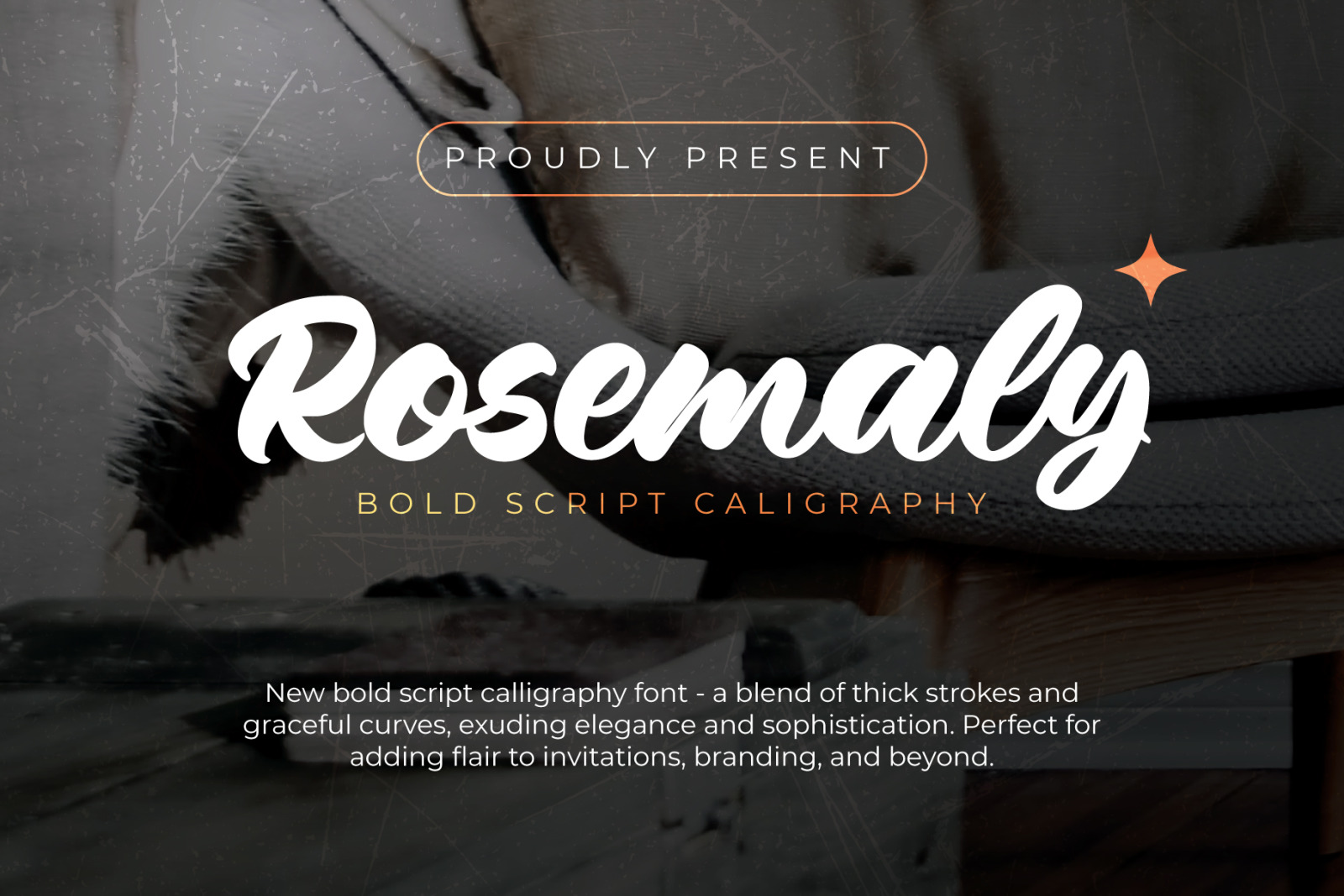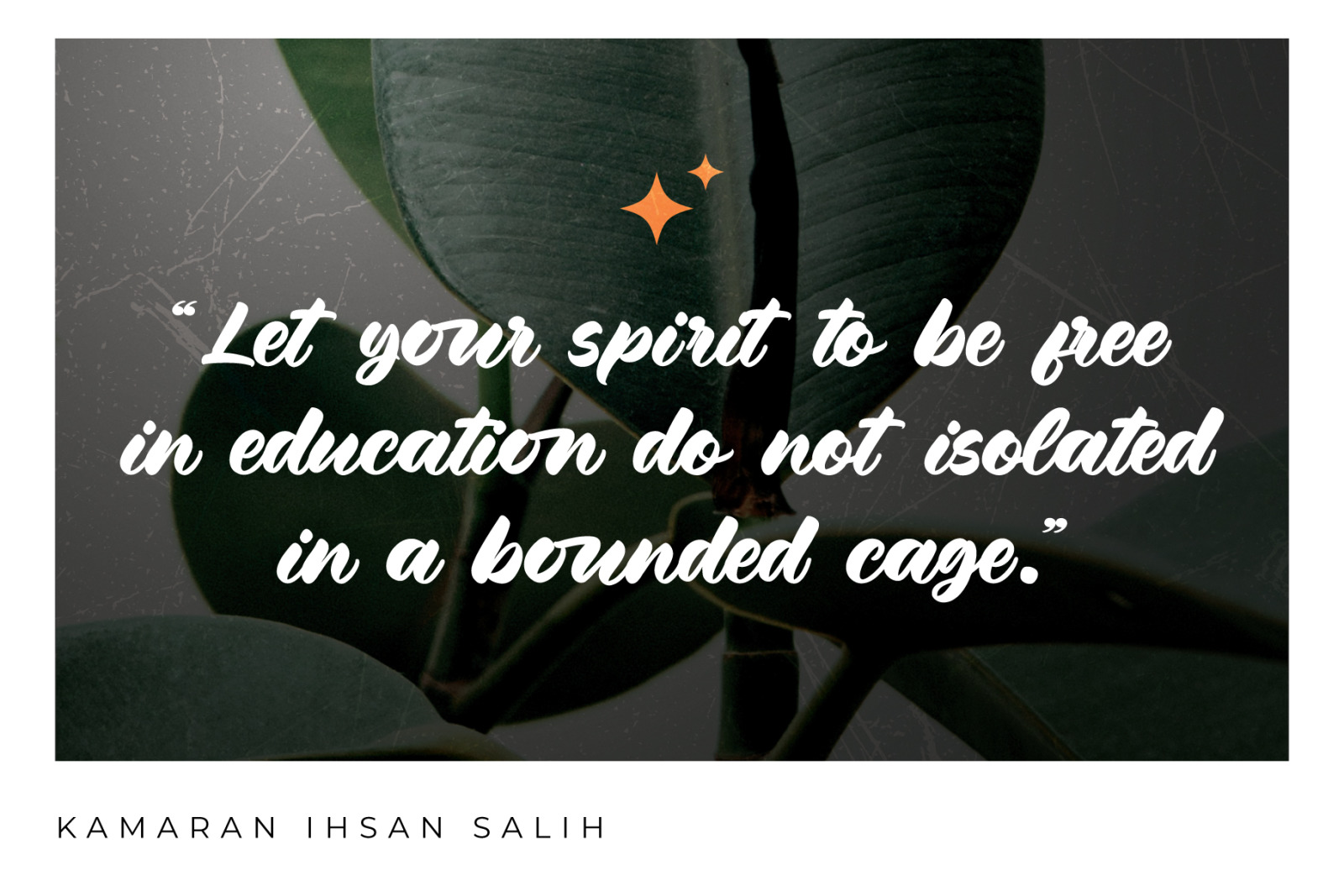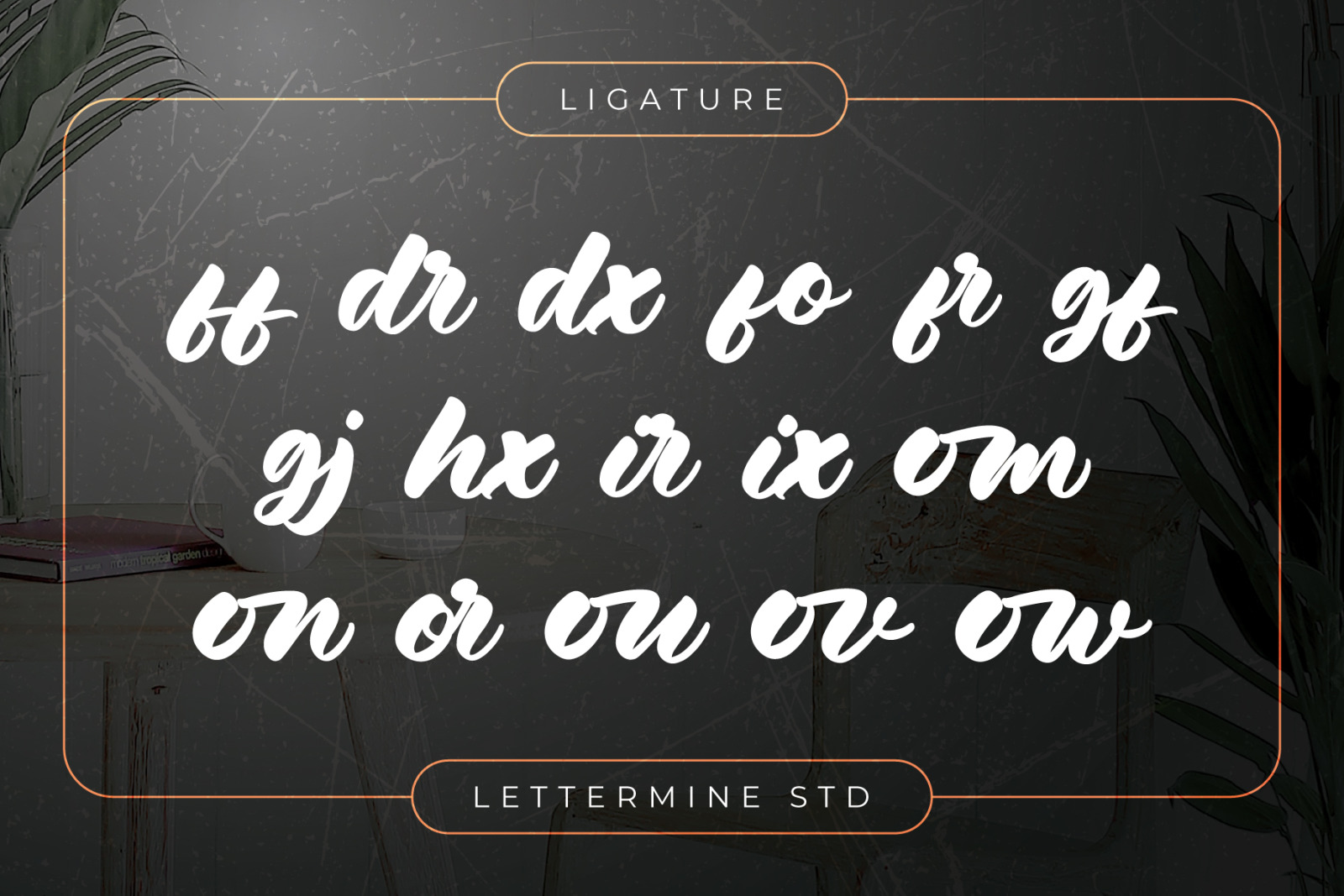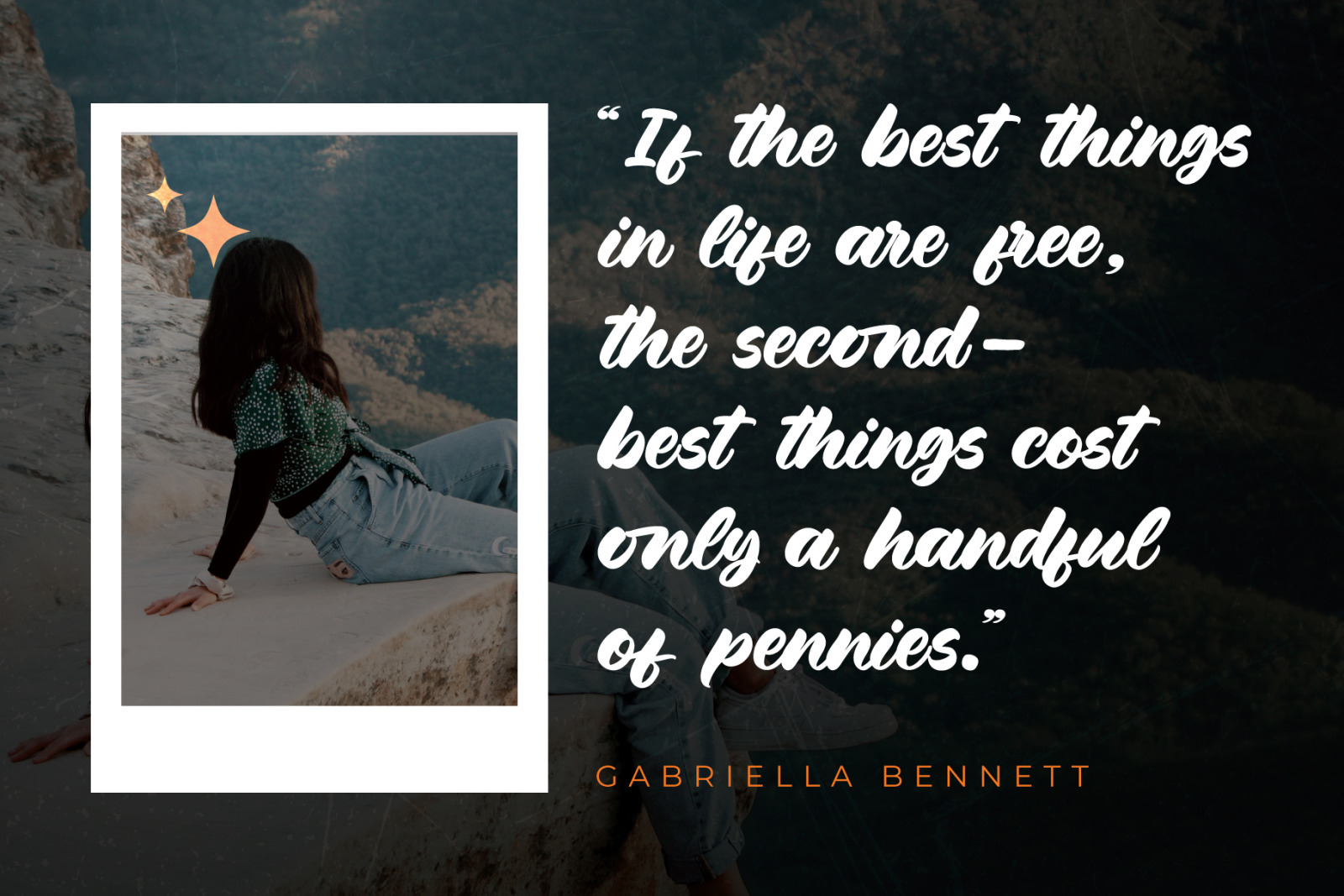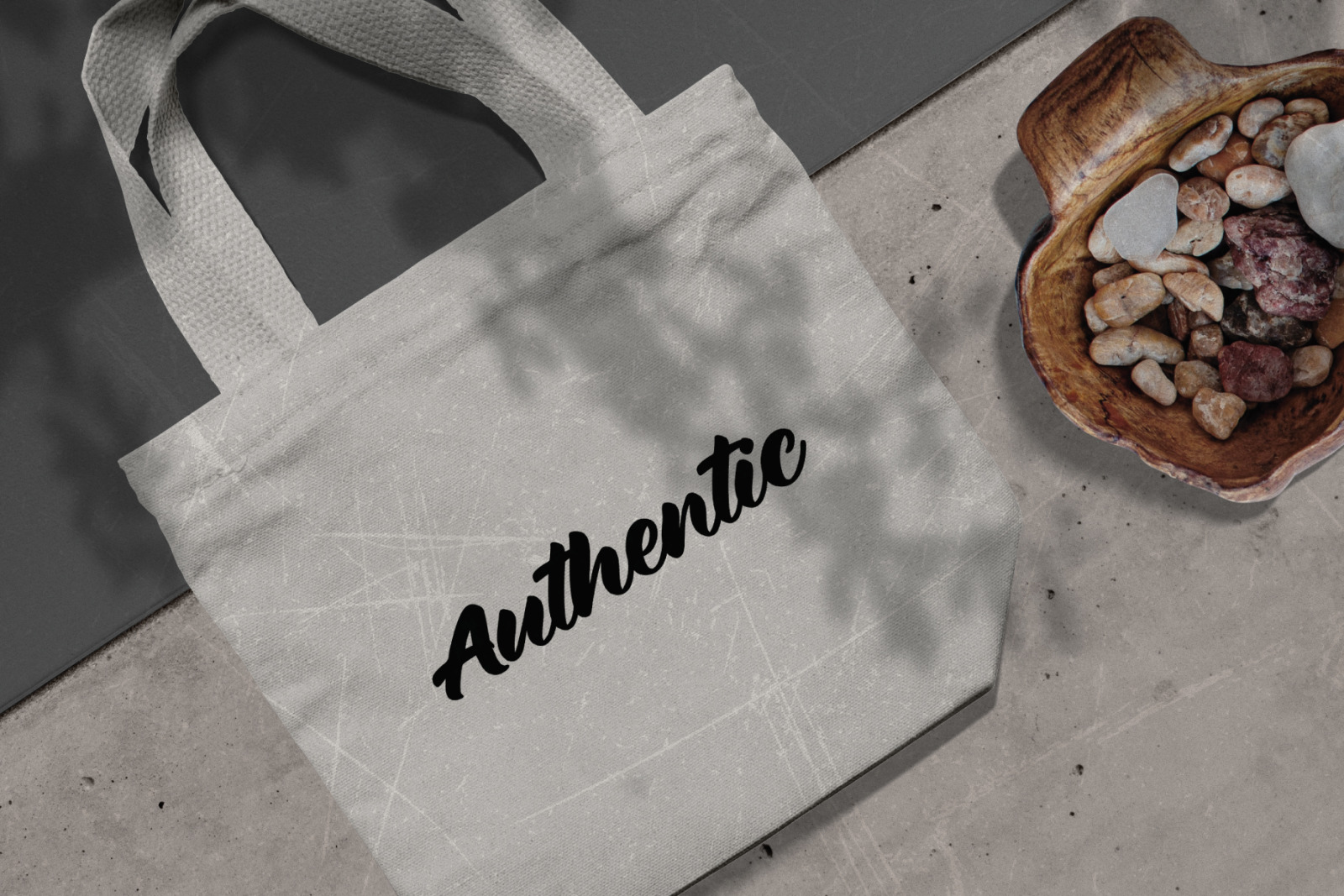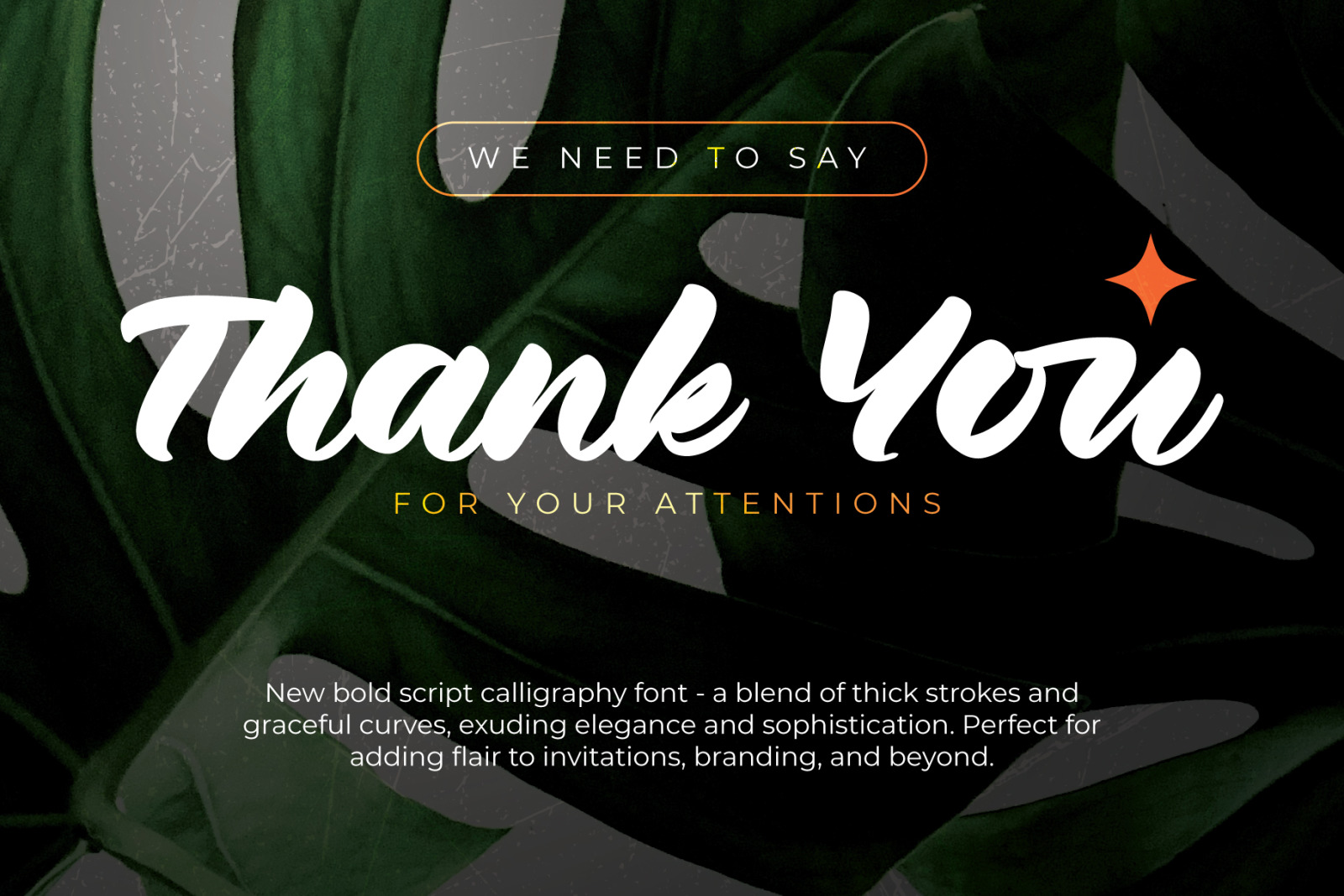
Rosemaly - Script Font
Introducing ROSEMALY Bold Script Calligraphy Font
Elevate your projects with ROSEMALY a captivating blend of boldness and elegance in script calligraphy. Crafted with precision, ROSEMALY brings forth a distinctive charm to your designs, perfect for various creative endeavors.
Key Features:
- Ligature: Enhance the flow and authenticity of your text with beautifully crafted ligatures.
- Alternatives: Explore multiple alternative characters to add flair and uniqueness to your compositions.
- Multilingual: Seamlessly communicate your message in different languages, catering to diverse audiences worldwide.
- Upper Case & Lowercase: Versatility at its finest – ROSEMALY offers both upper and lowercase characters for seamless integration into your designs.
- Punctuation: Every detail matters – punctuate your creations with precision using ROSEMALY’s meticulously designed punctuation marks.
Why Choose ROSEMALY:
- Captivating Aesthetics
- Versatile Application
- Effortless Elegance
- Professional Finish
Unlock the potential of your designs with ROSEMALY Bold Script Calligraphy Font – where boldness meets beauty, and creativity knows no bounds. Elevate your projects today!